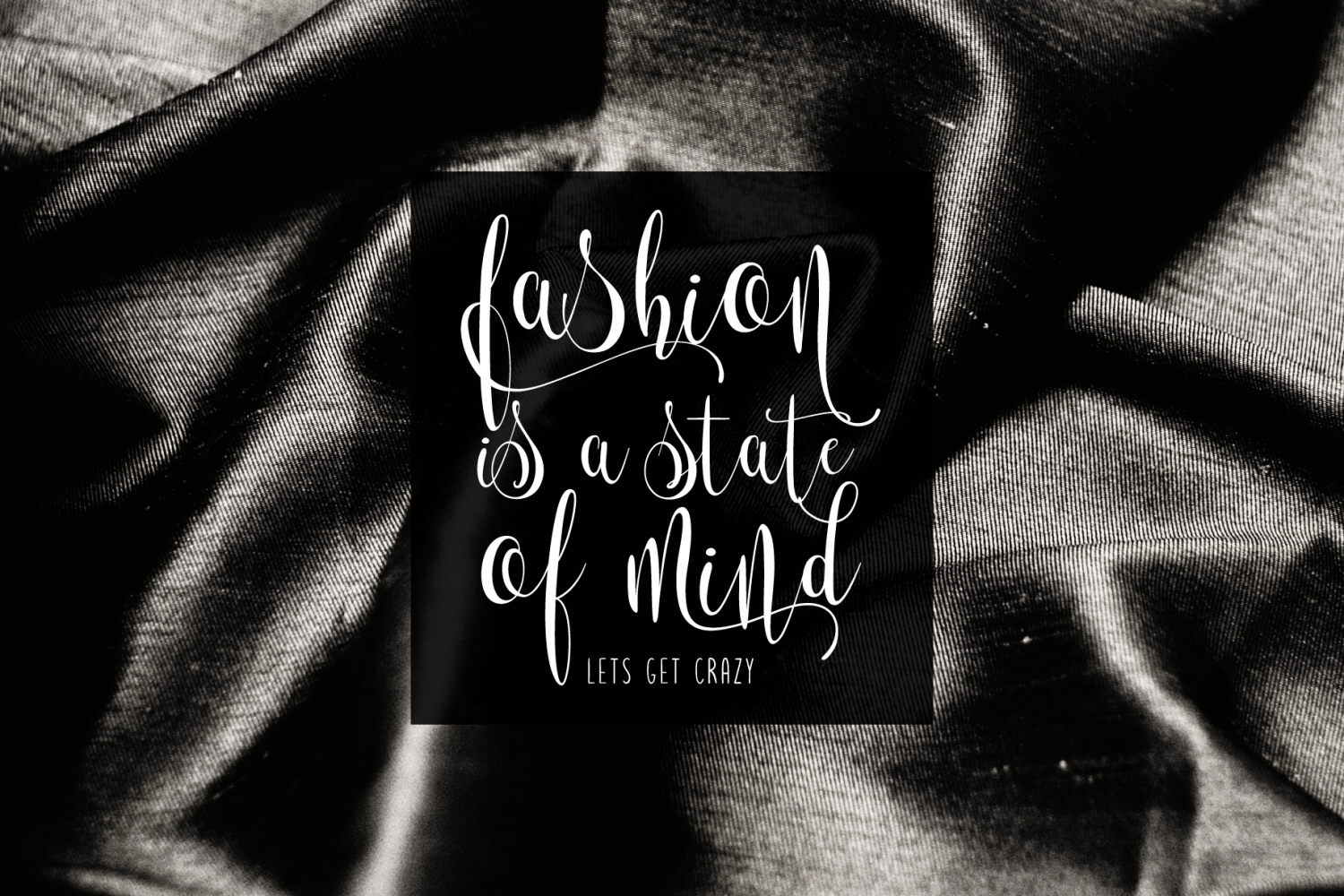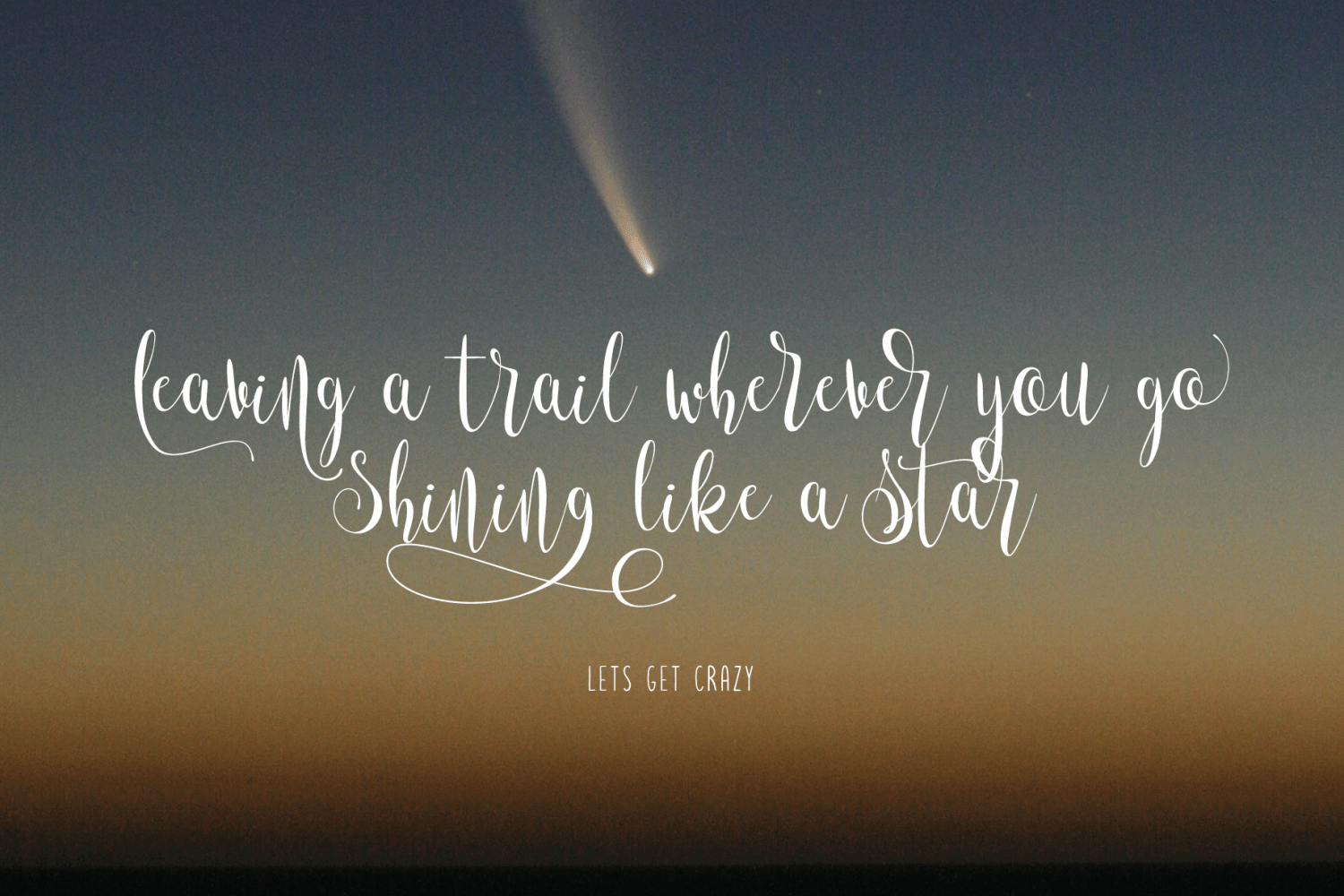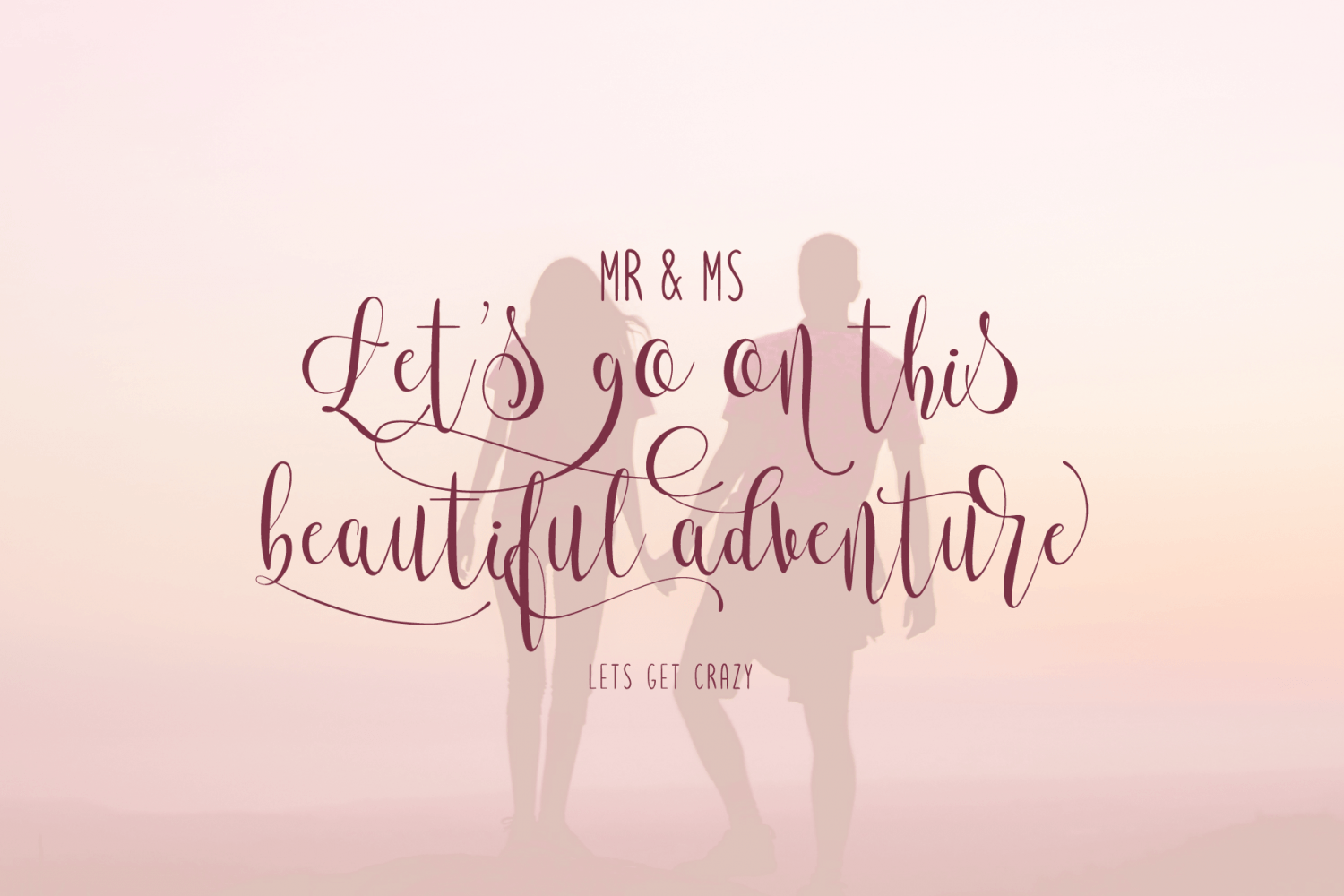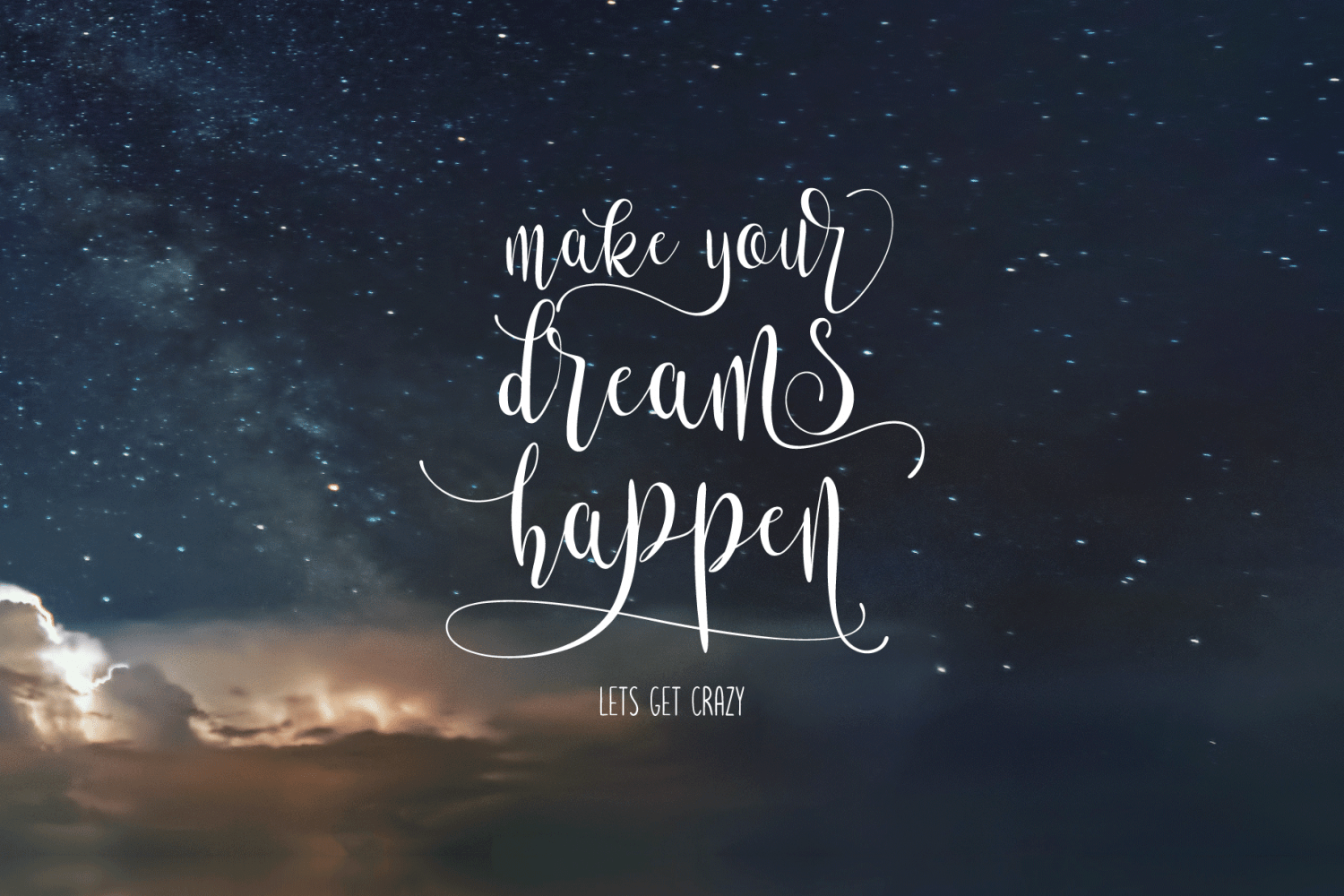
Let's Get Crazy
Font Family by Pedro Teixeira Type Foundry
Lets get crazy is a font inspired by modern lettering/calligraphy with pronounced swashes, ascending / descending and crazy ear in "r" (that btw you have more ordinary alternates) and so on, challenging the boundaries of reasonable. This font is good for titles or short sentences in combo with lets get crazy sans serif majuscule letters, giving you a nice pairing of the modern lettering.